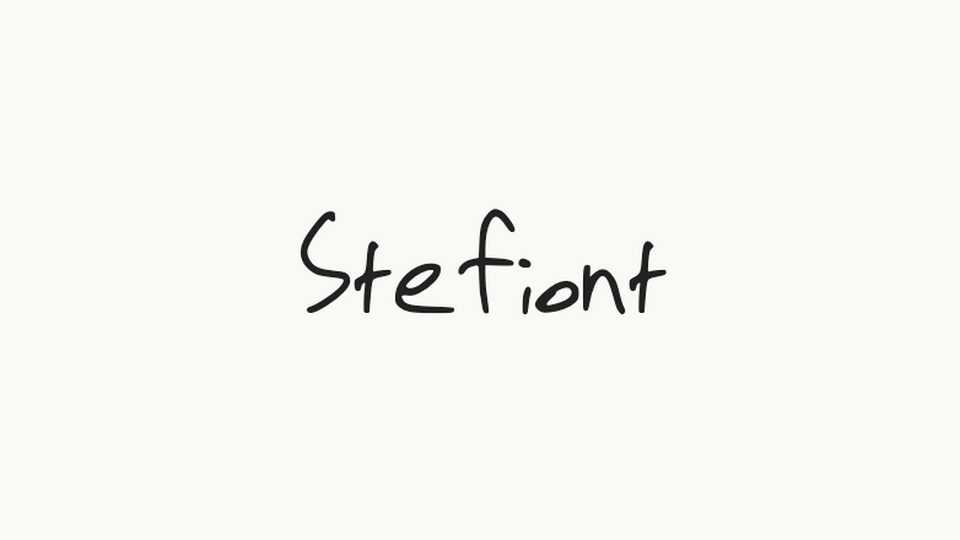
Stefiont Font › Fontesk – Download Grátis
Download Stefion font, a personal handwriting made into a basic font with 4 glyphs to each character for more authentic look. With its distinct style Stefion font is great for display messages, writing, poetry, quotes, architecture, posters and headings.